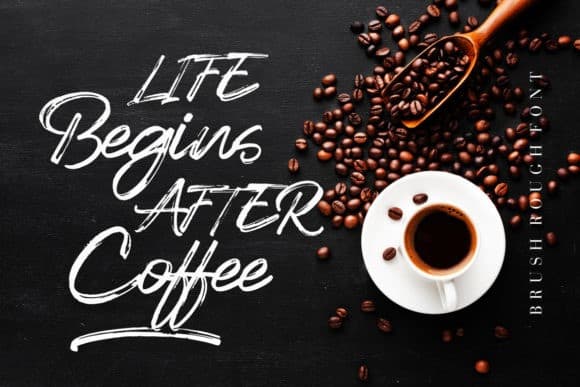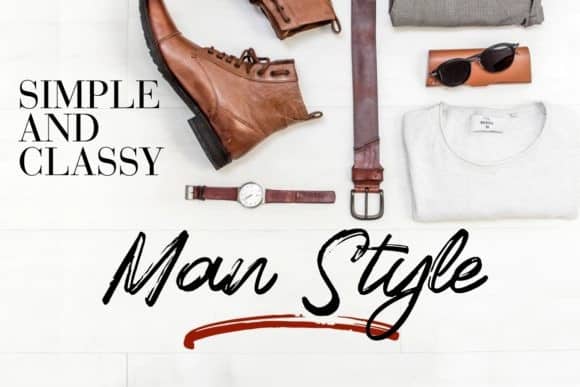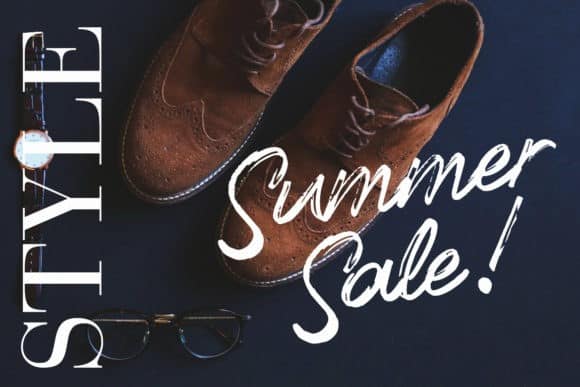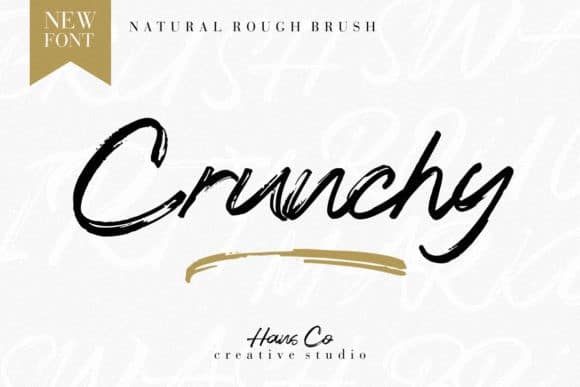
Crunchy Brush Font
Hello friend.  Crunchy Brush Font is a modern brush font. With a classy and natural hand-drawn style, it brings a classy and beautiful typeface. Made from font designer named HansCo. It’s perfect for creating logos, product branding, posters, social media posts and much more! Ignite your creativity with this fun font.